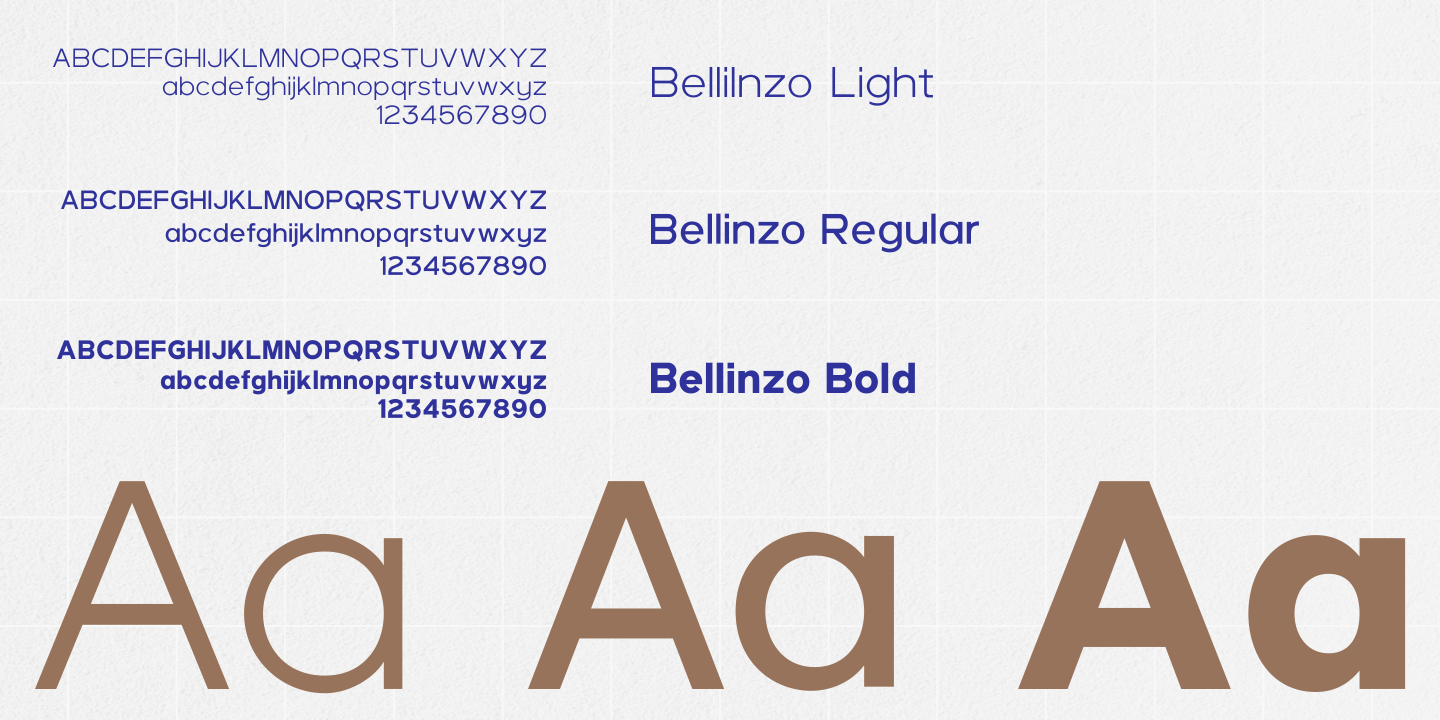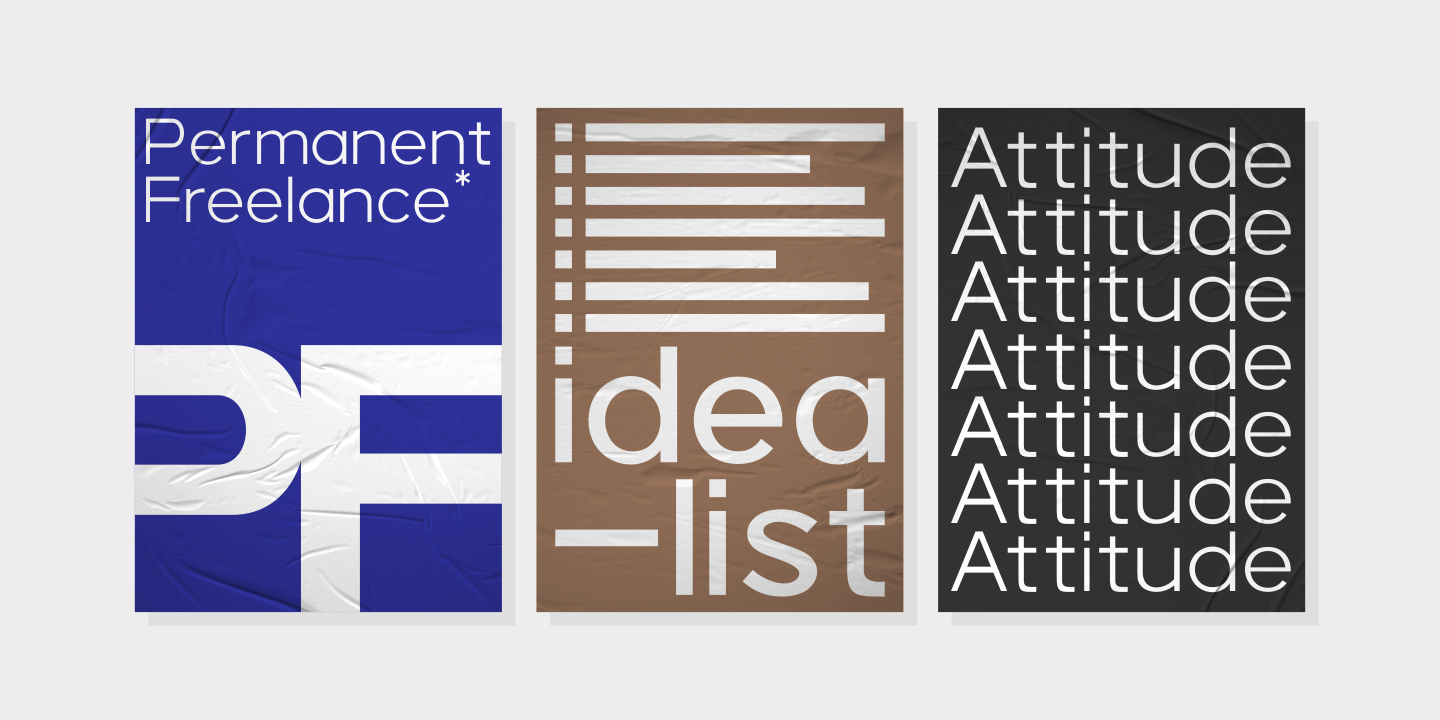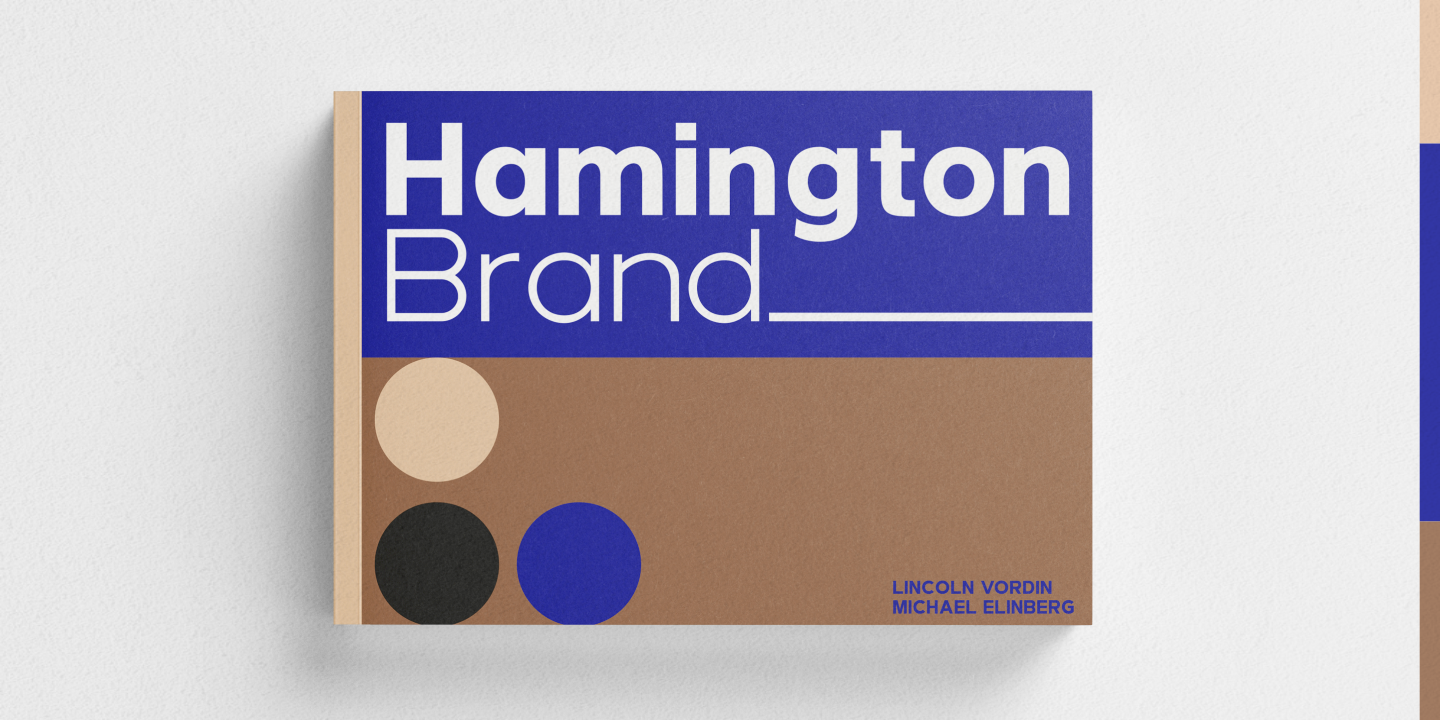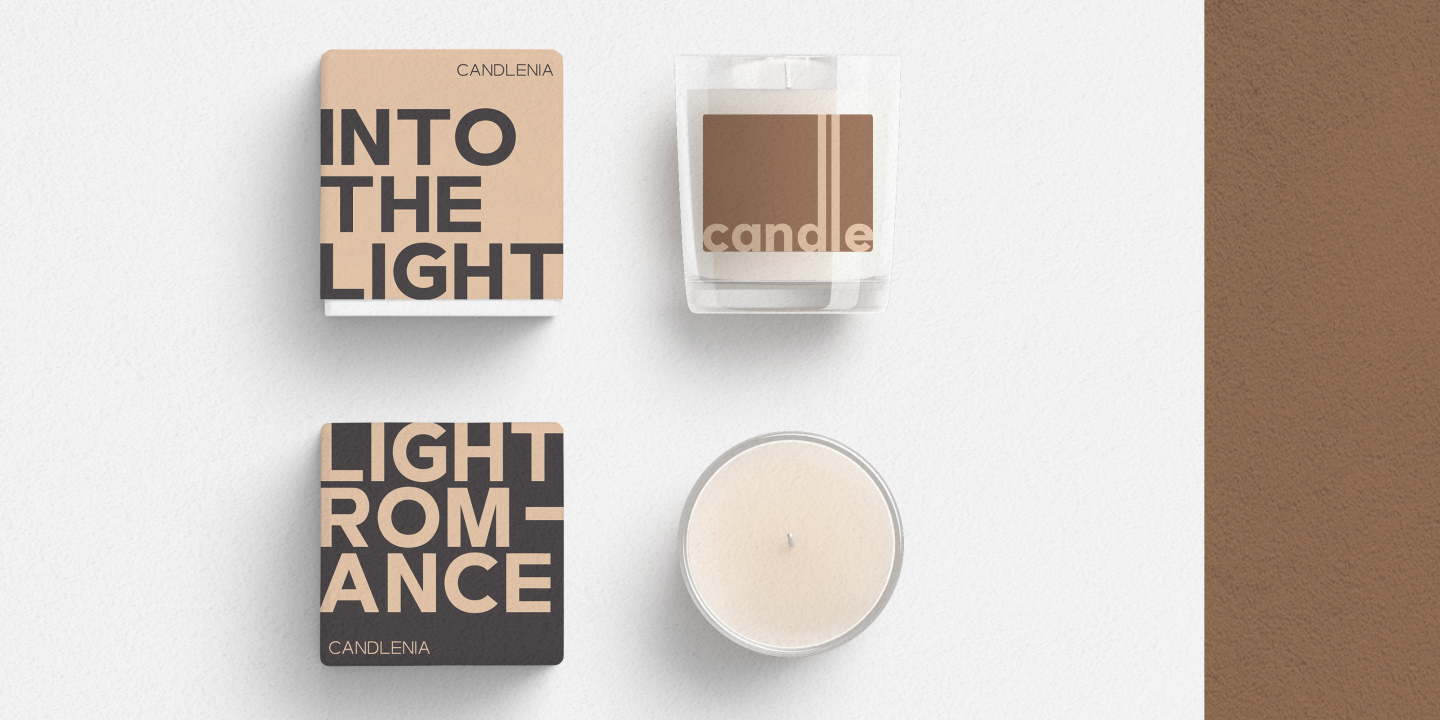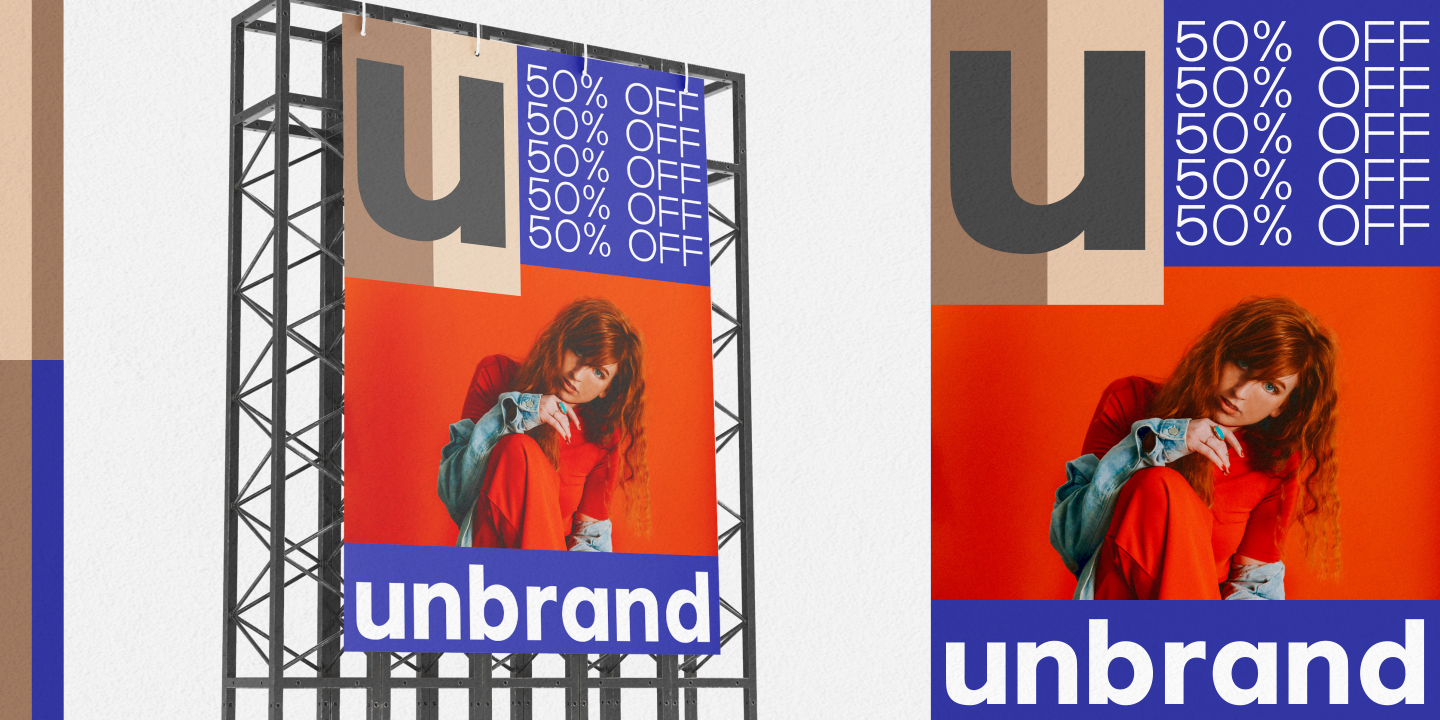
Bellinzo sans serif font is a set of 3 weights and it is good for making creative displays and it has urban / street wear touch. It’s a lovely and unique sans serif font, allowing you to make each word look completely stylish!
Bellinzo is the unique typeface for creating elegant headlines, fashion magazine covers, book covers, templates and creative displays and logo designs.